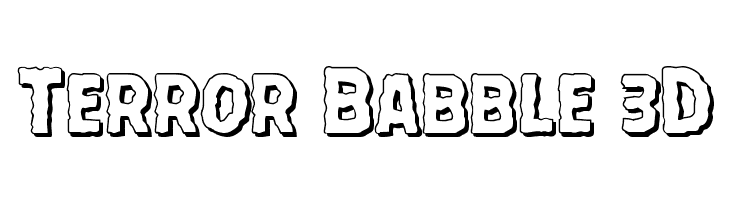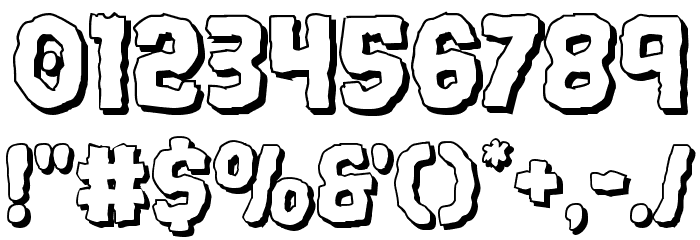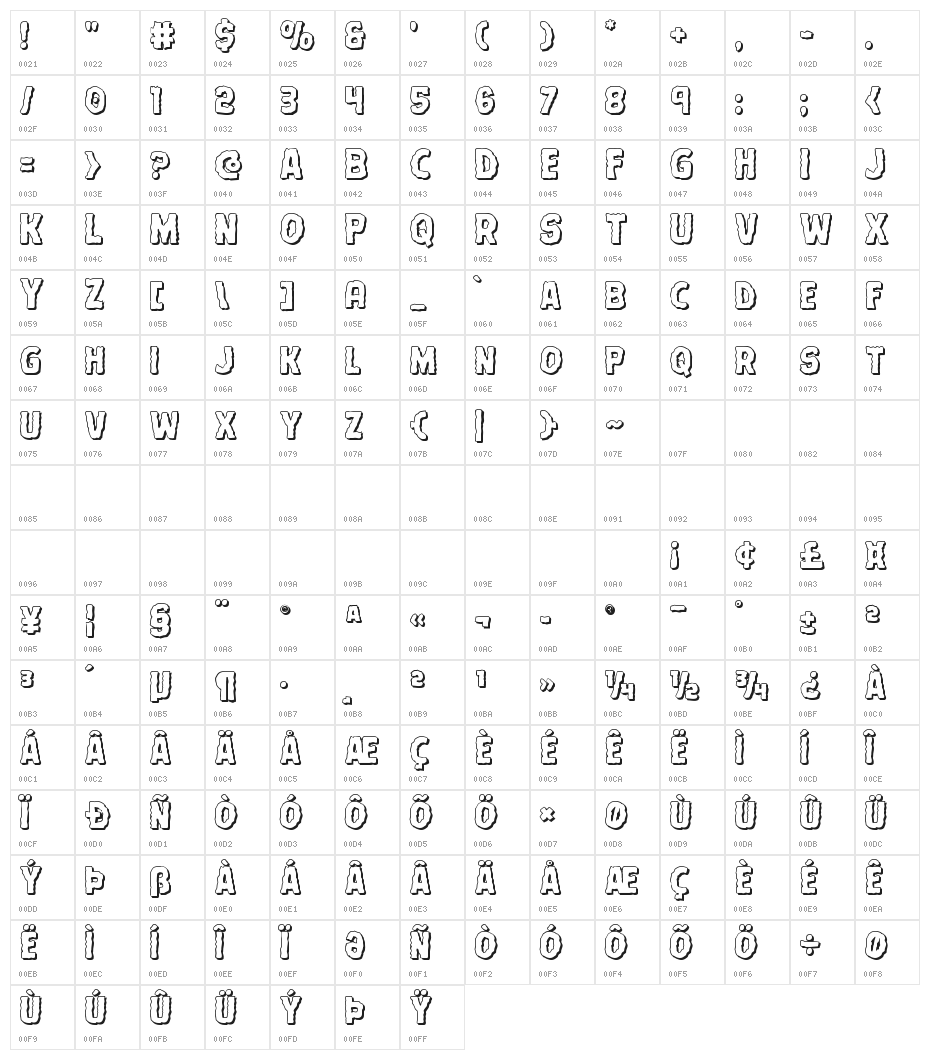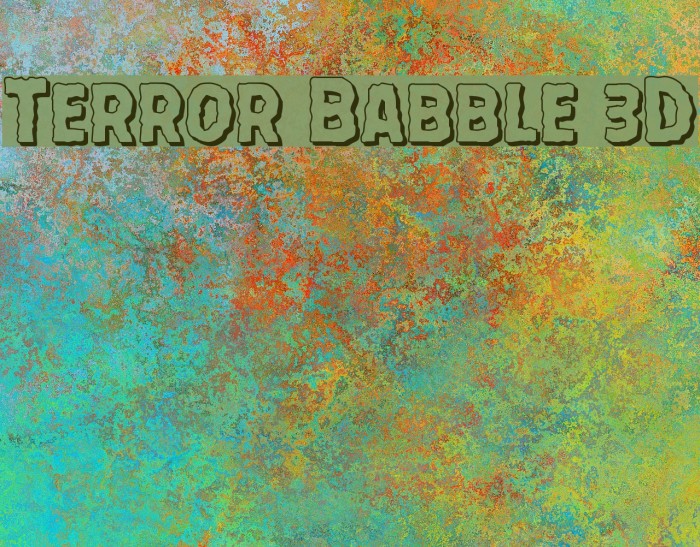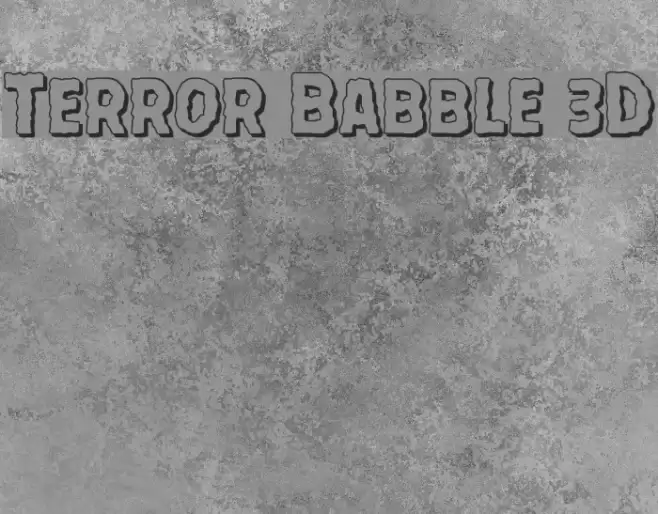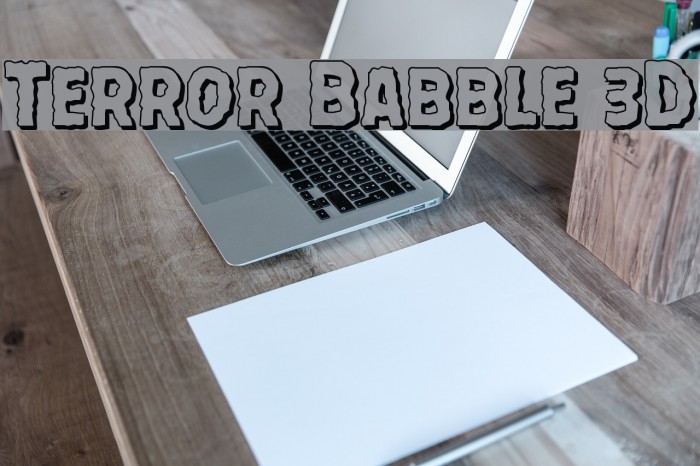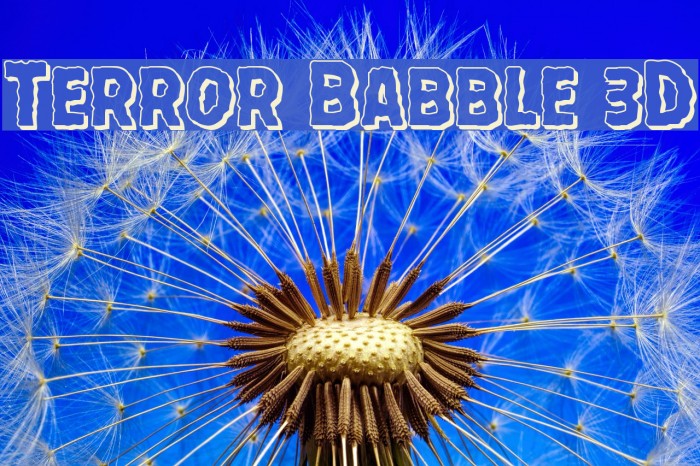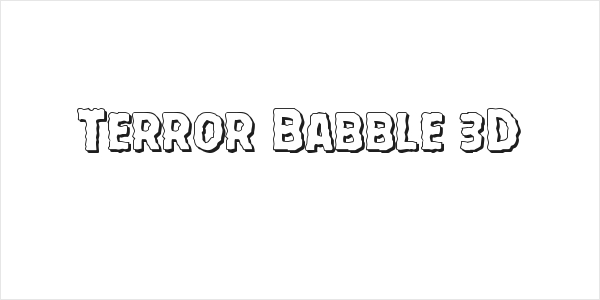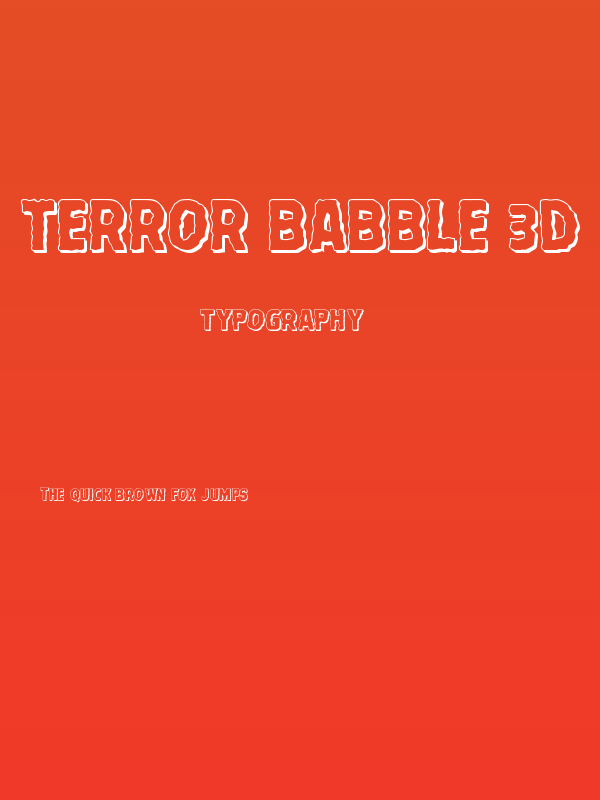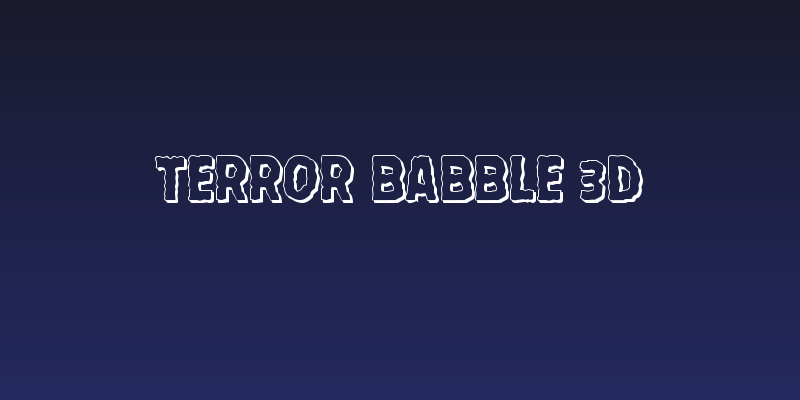
Terror Babble 3D Font
Terror Babble 3D Description
This font features a bold, playful design with a 3D effect that gives each character a sense of depth and dimension. The letters are outlined with a thick, uneven stroke, creating a cartoonish and slightly chaotic appearance. The style is reminiscent of hand-drawn lettering, with irregular edges that add to its whimsical charm. The characters are uniformly bold, with a consistent weight throughout, and the spacing between them is relatively tight, enhancing the compact and energetic feel. The font's unique style makes it ideal for projects that require a fun and eye-catching typeface.
| Use Case | Headlines, Posters, Logos |
| Proposed Projects | Ideal for comic books, children's book covers, playful posters, and Halloween-themed designs. |